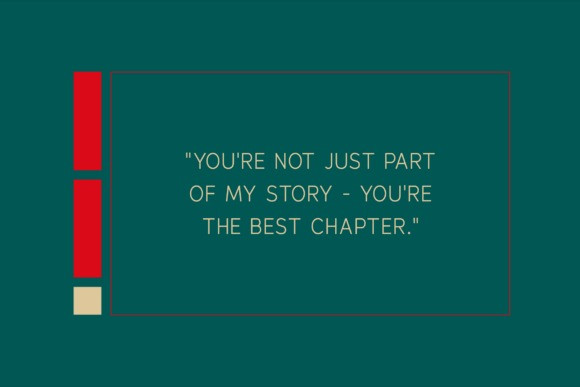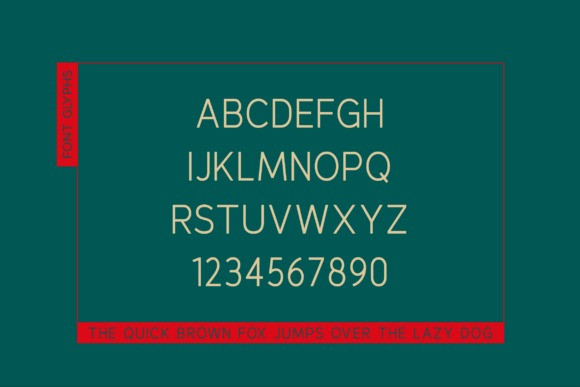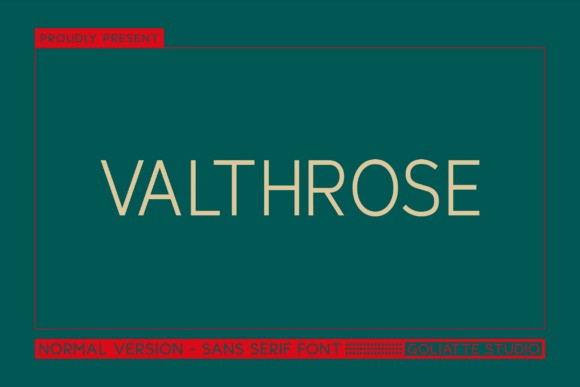
Valthrose Font
Valthrose Font is a powerful, all-caps sans serif font tailored for contemporary designers. With its sleek lines and refined minimalist aesthetic, this typeface radiates confidence and authority. Perfect for projects that demand a professional, high-impact look, Valthrose delivers sharp precision and a bold visual presence, whether applied to logos, websites, or print materials.
Its sturdy geometric foundation ensures remarkable versatility, making it equally effective for digital interfaces, luxury branding, and premium packaging. The uppercase format enhances clarity and legibility, ensuring your message commands attention across headlines, posters, and standout visuals.
Valthrose embodies modern minimalism paired with functional design. It offers clean, bold strokes for a polished and professional appearance, excelling in a variety of applications from large-scale headlines to refined, compact text. Its design prioritizes readability without compromising on style, ensuring it adapts seamlessly across mediums.
Valthrose is the go-to choice for brands, creative agencies, and designers seeking a sleek, authoritative identity. Its contemporary elegance makes it particularly ideal for tech companies, corporate branding, and luxury design projects where sophistication and readability are key.
Make your work unforgettable with Valthrose — a typeface designed to leave a lasting impression.